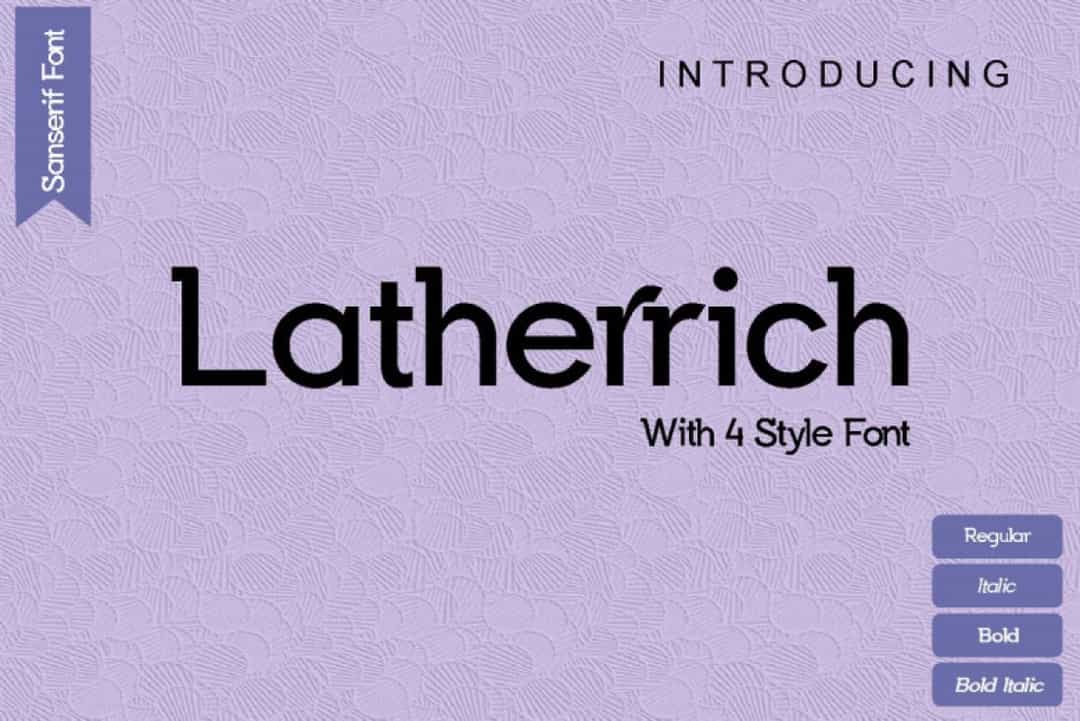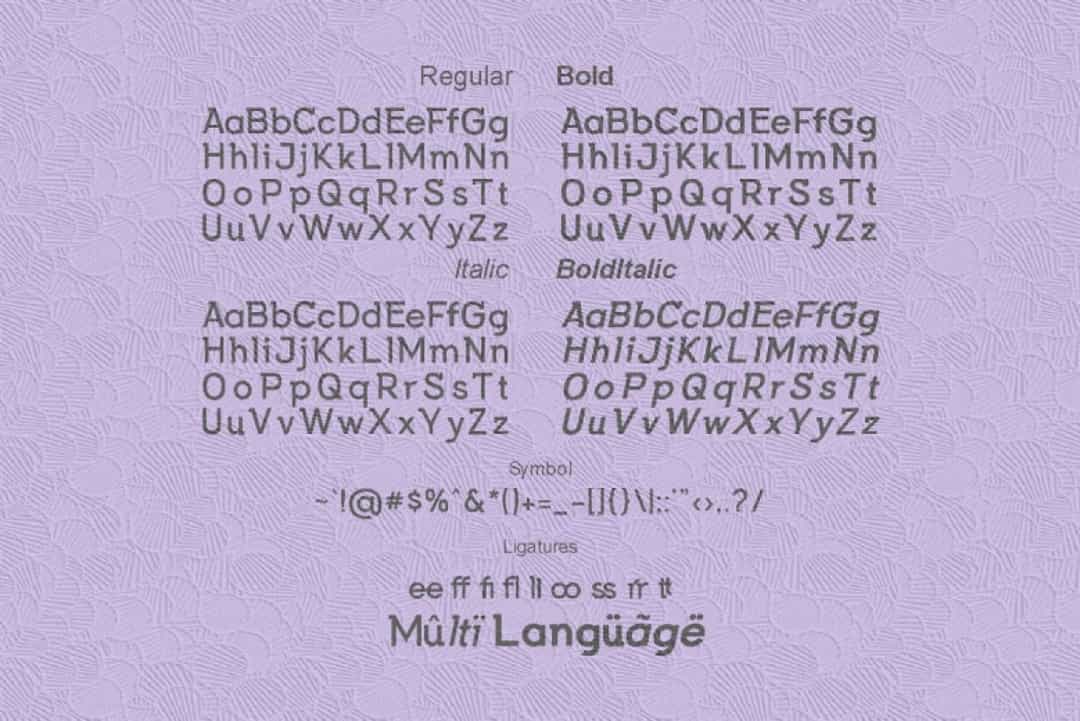
Latherrich is an original geometric sans serif font family inspired by classic typefaces like Avant Garde and Museo Slab. Latherrich fonts can be successfully utilized in posters, wedding invitations, branding projects, cards interior design of products websites as well as more – making them highly adaptable.